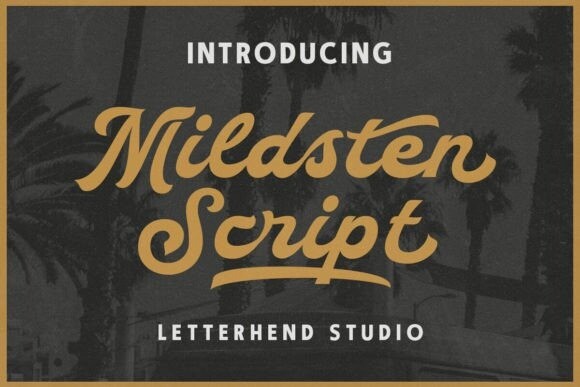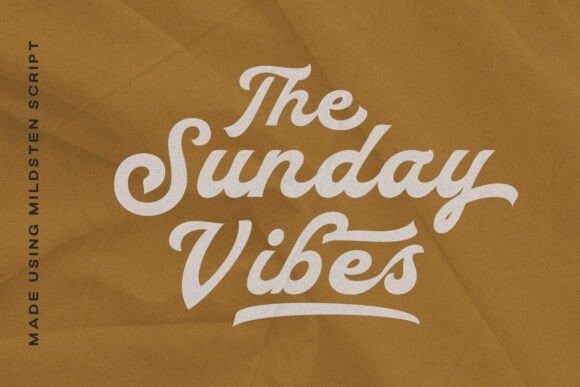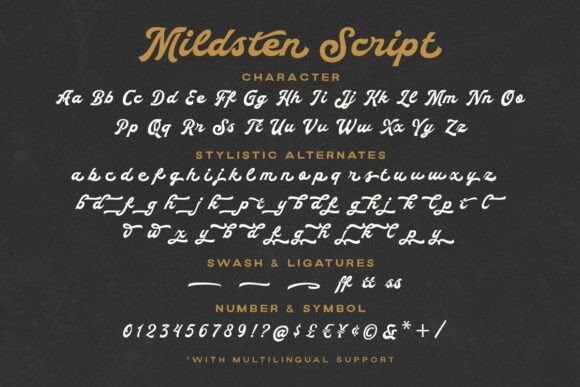
Mildsten Font
Mildsten Font is a bold script with classic looks. This font is perfectly made to be applied especially in logos, and other various formal forms such as invitations, labels, logos, magazines, books, greeting/wedding cards, packaging, fashion, makeup, stationery, novels, labels, or any type of advertising purpose.